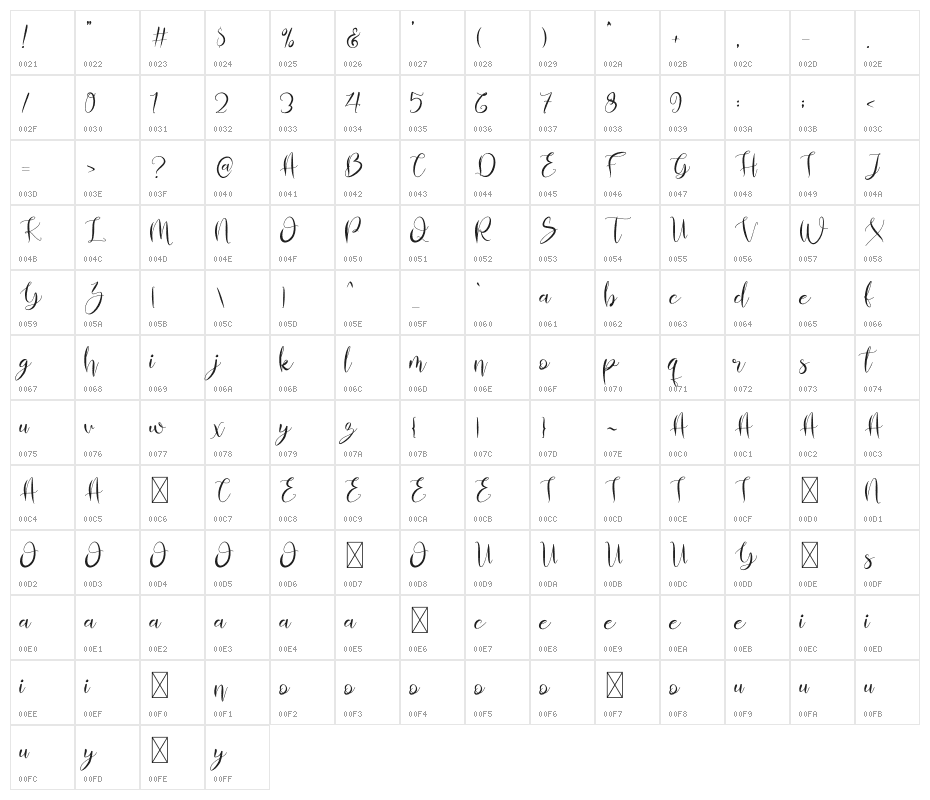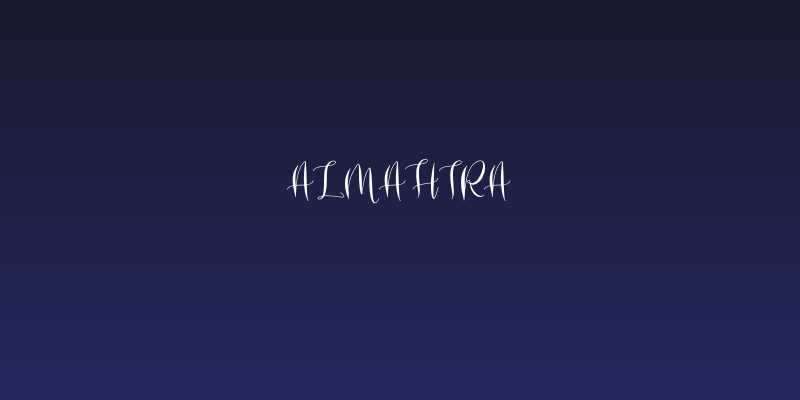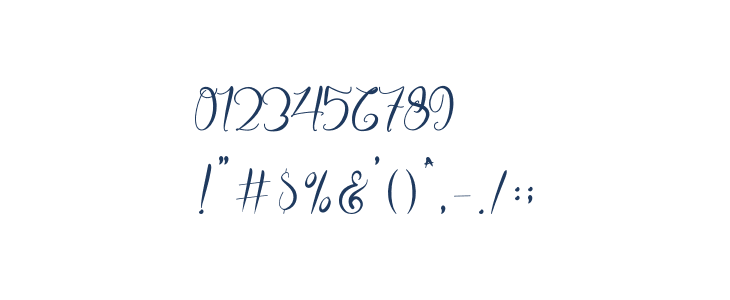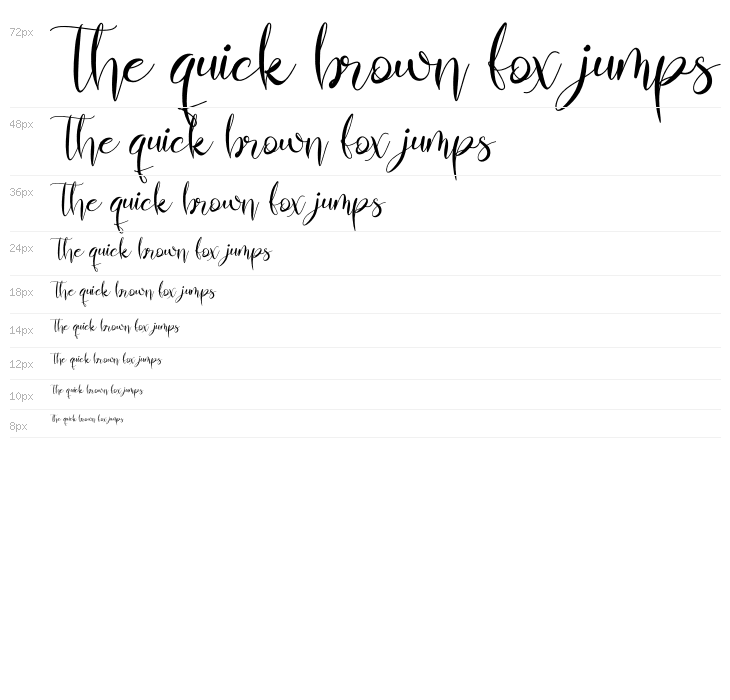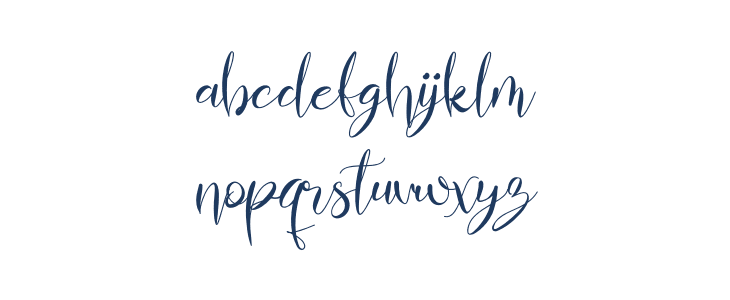
Almahira Font
Almahira Description
This font exudes a sense of elegance and fluidity, characterized by its cursive, handwritten style. The letters are gracefully connected, with sweeping curves and flourishes that add a touch of sophistication. The uppercase letters are particularly ornate, with extended strokes that enhance their decorative appeal. The lowercase letters maintain a consistent flow, making the text appear seamless and continuous. The numerals are styled to match the overall aesthetic, with a slight slant and artistic flair. Special characters are thoughtfully designed, complementing the font's overall style. This font is perfect for projects that require a personal, artistic touch.